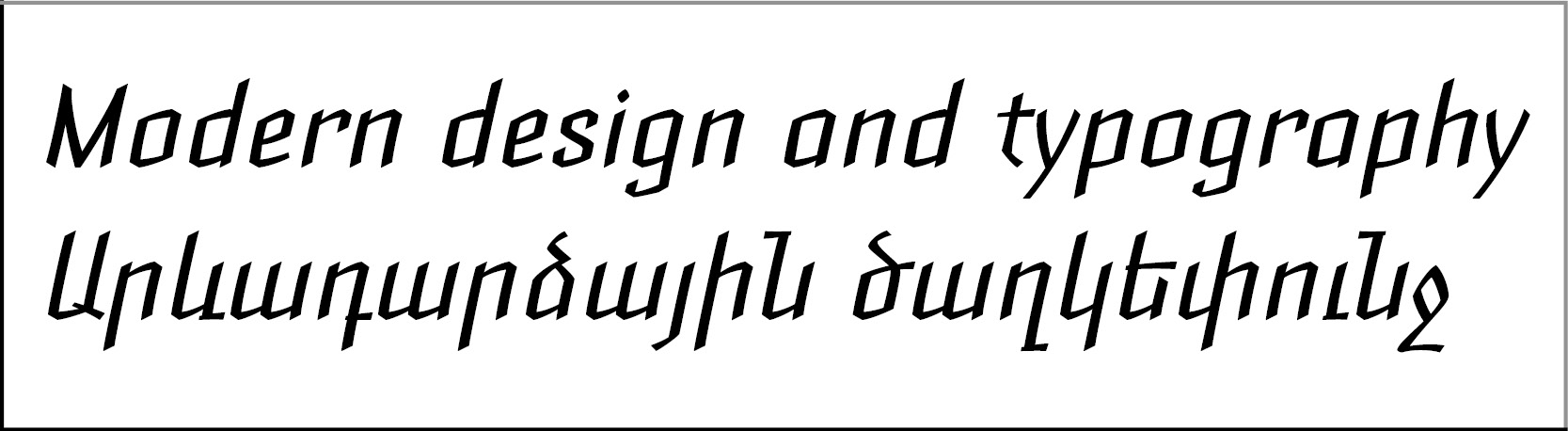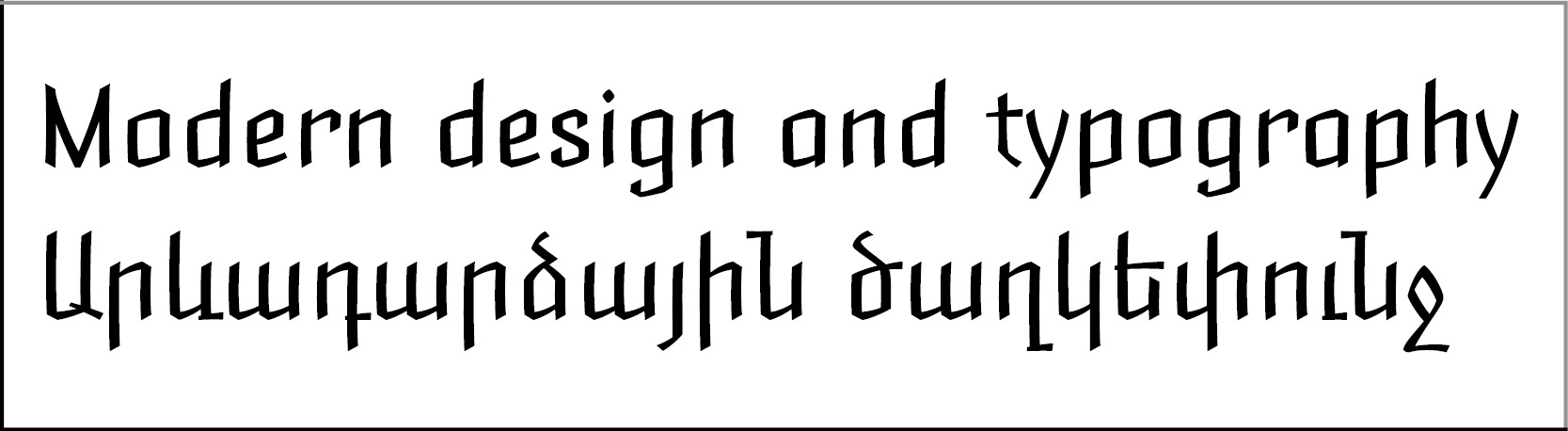
GHEA Zulo
Design date: 2024
Styles: Regular, Italic
Writing systems: Armenian and Latin (Central European).
The display font GHEA Zulo has a chopped rectangular shape with a small entasis.
Recommended for posters, art albums, covers, etc.